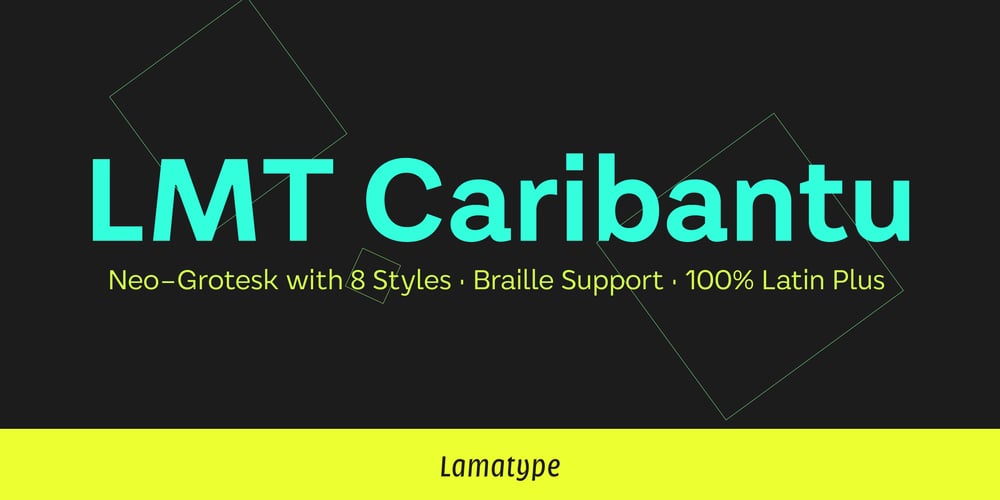
LMT Caribantu Font Family was designed by Renan Bassan and published by Lamatype. LMT Caribantu contains 9 styles and family package options. LMT Caribantu is an update of the Caribantu Grotesque typeface, with a new, more consistent and refined design. Being a 100% Latin Plus typeface, it features a wide range of characters for all Latin languages, making it a versatile option for designers worldwide. The kerning has been adjusted to ensure readability and text cohesion, providing a pleasant and professional reading experience. Additionally, LMT Caribantu includes all braille characters, making it accessible, inclusive, and ready for complex signage and packaging projects. With four stylistic sets, this typeface allows users to further customize their designs.Alternative glyphs allow you to change the look to a more modern and tech form, giving even more dynamism to web pages, packaging, and signage.Check out some of the features present in LMT Caribantu: 8 weights and a variable option; 100% Latin Plus; 15 OpenType features; 4 stylistic sets; Monetary symbols for all circulating currencies; Braille character sets; Math symbols; Arrows pointing in all directions.